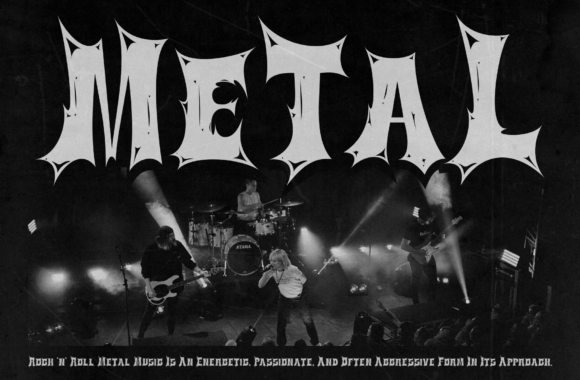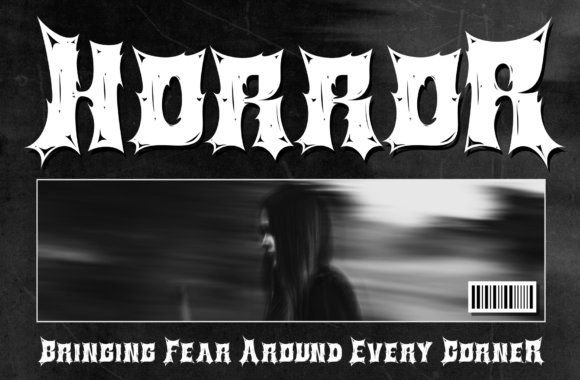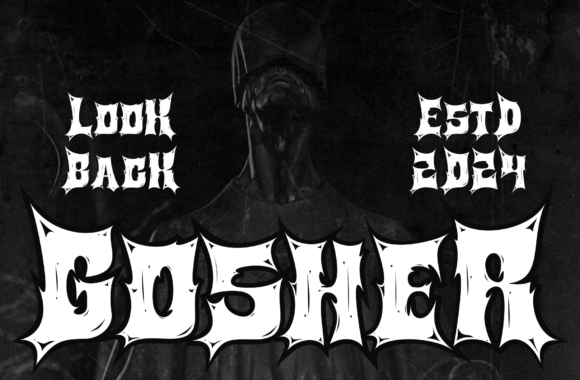
Betok Font
Introducing our new product**Betok** – Black Metal **Betok** Black Metal is a font style that combines decorative Gothic elements with a strong modern touch. The letters are upright, bold, and feature curved lines and sharp angles, creating a dramatic and powerful appearance. It is suitable for designs that aim to convey a dark, mysterious, and powerful impression.